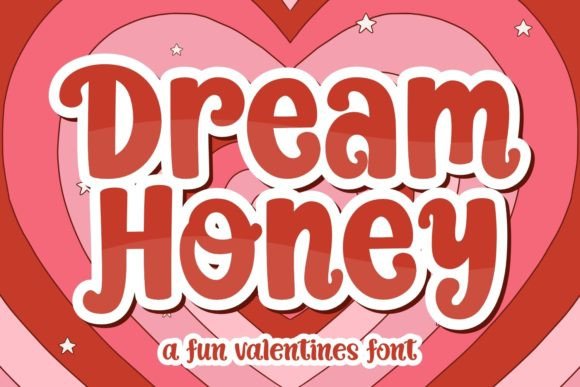
Dream Honey Font
Meet “Dream Honey,” the whimsical Valentine font that adds a touch of playful sweetness to your designs. With its fun and lively style, this font is perfect for expressing love and joy on Valentine’s Day. Whether you’re creating cards, messages, or cute graphics, Dream Honey brings a delightful charm that sparks creativity and smiles. Spread love and laughter with this cheerful font designed to make your Valentine’s creations even more special.